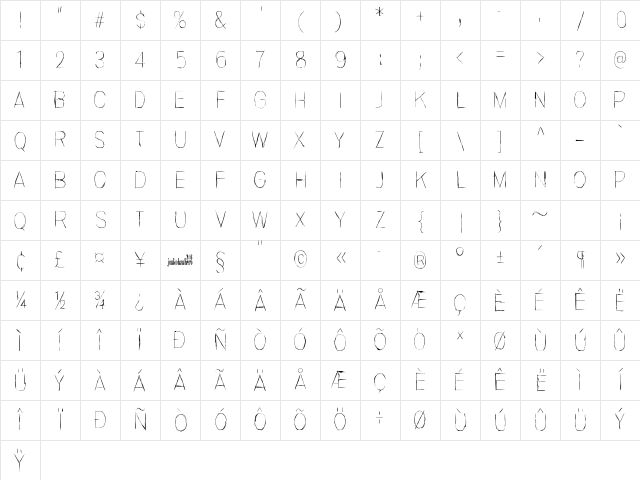
Complete Invisiblerror, Fast Regular glyph index. Displaying only characters natively supported by Invisiblerror, Fast Regular font.
Invisiblerror, Fast is a composed and adaptable typeface that performs quietly and consistently across a wide range of design contexts.